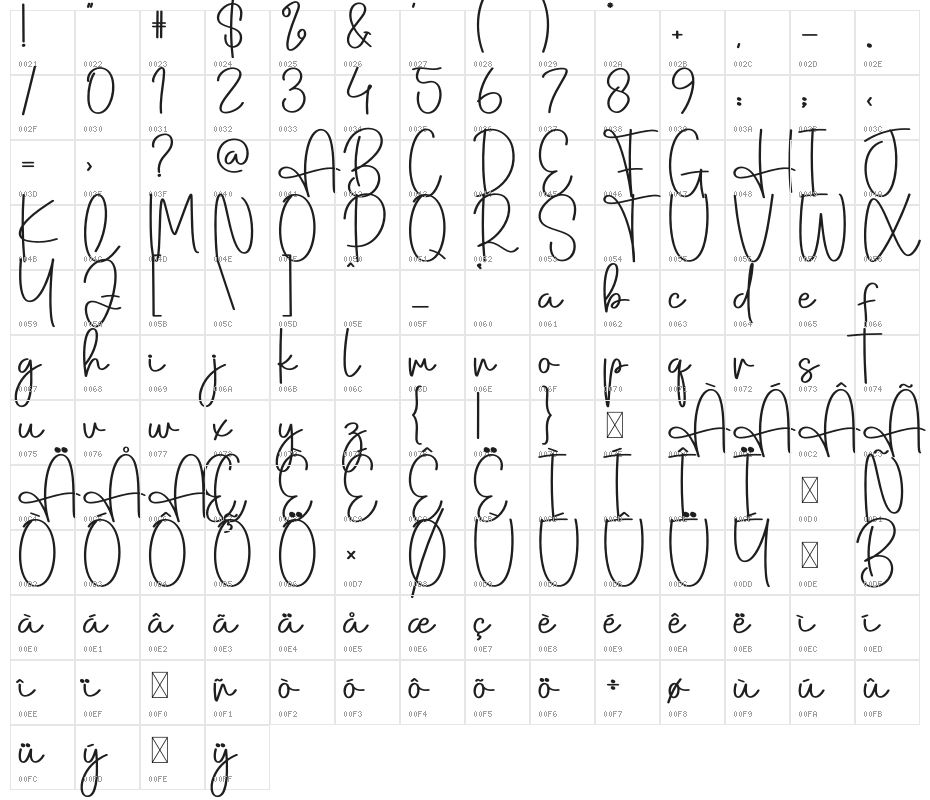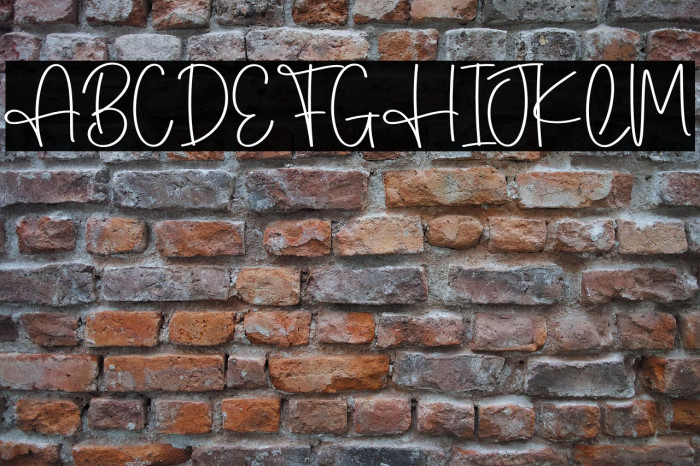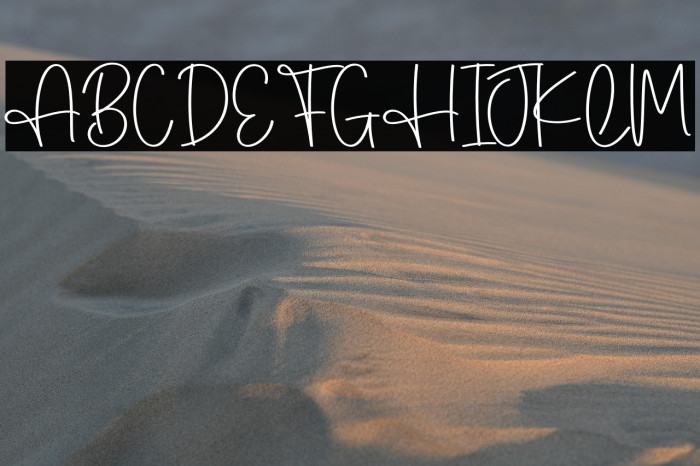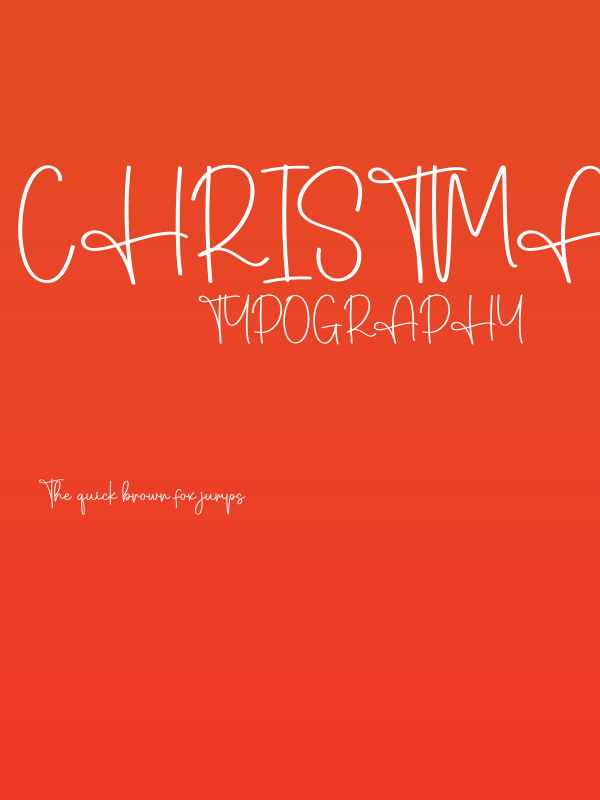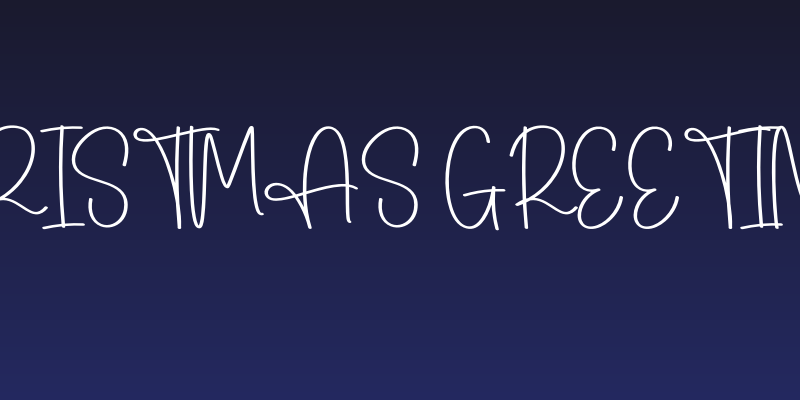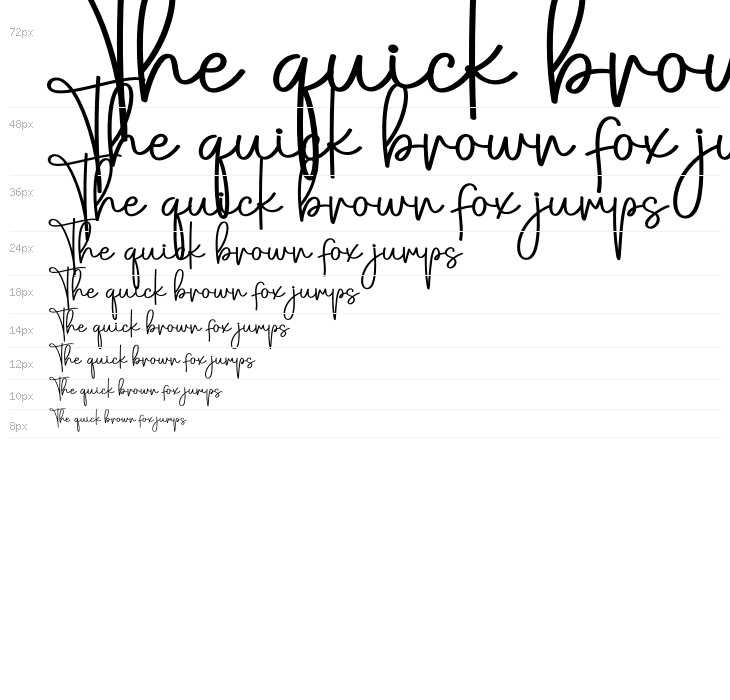
Christmas Greetings Font
Christmas Greetings Description
This font features a playful and whimsical handwritten style, characterized by its flowing and interconnected letterforms. The uppercase letters are tall and slender, with a slight slant that adds a dynamic feel. The lowercase letters maintain a consistent flow, with loops and curves that enhance its casual and friendly appearance. Numbers and special characters follow the same playful aesthetic, making the font versatile for various applications. The overall design is light and airy, perfect for conveying a sense of joy and creativity.
| Proposed Projects | Ideal for greeting cards, invitations, festive banners, and playful branding projects. |